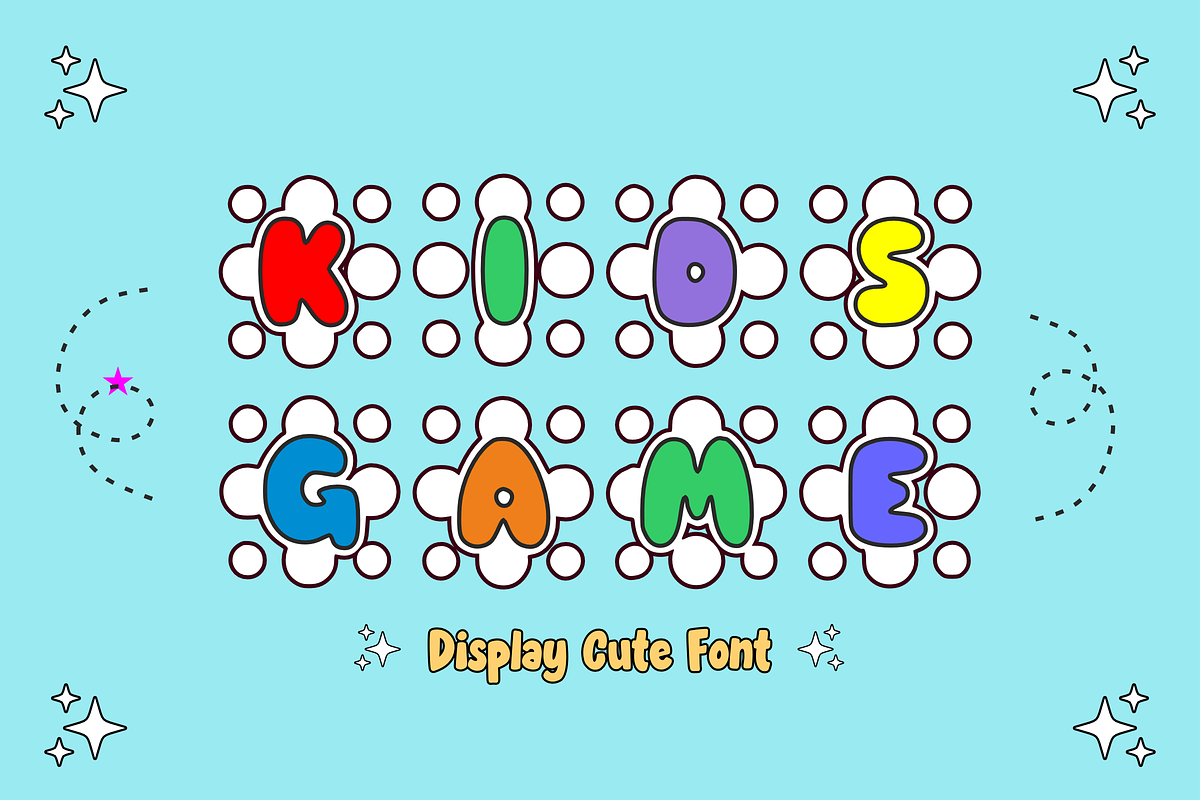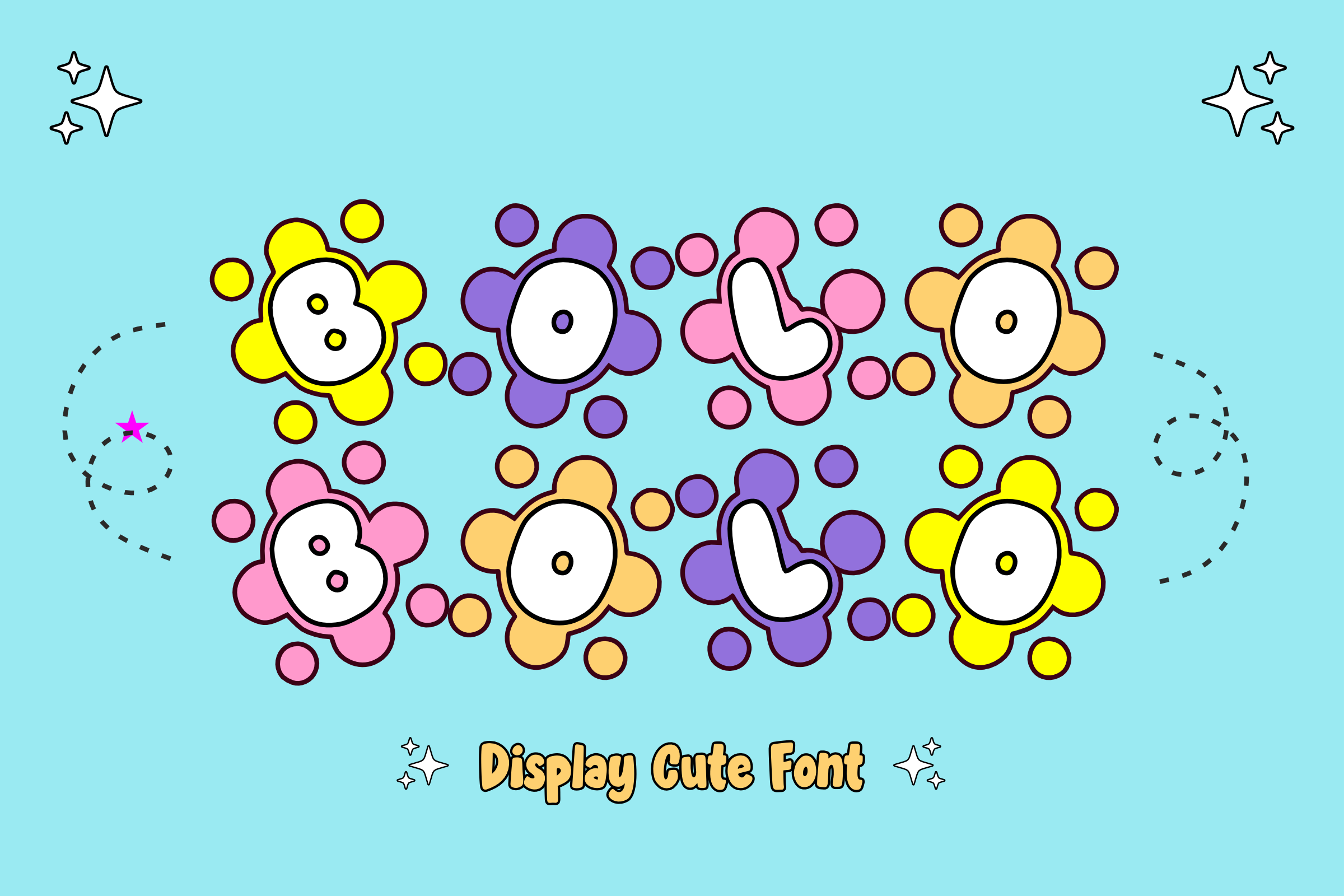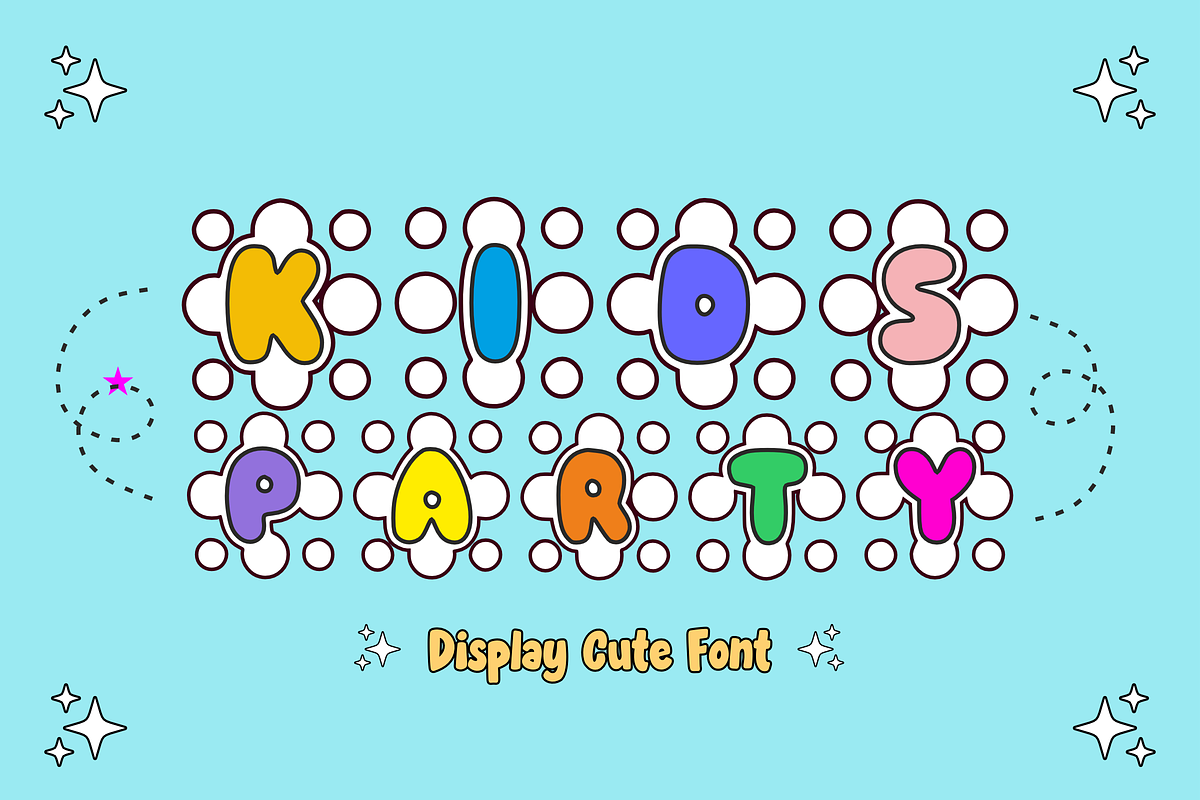
Bolo Bolo - Cartoon Font Types
Unveiling “Bolo Bolo,” a vibrant and lively Decorative font that is designed with a delightful polka dot theme. Each character in this whimsically patterned typography is adorned with bouncy dots, making spotting letters a breeze. This fun typeface is the ideal design element for imbuing personality into sublimation designs, imparting a splash of unique style to t-shirts, mugs, tote bags, and beyond. It breathes a dose of energy into animations, and it renders comic titles even more engaging. Unleash your creativity with “Bolo Bolo” and continually show your support by following and liking our store. We’re motivated in crafting more novel and exclusive font styles just for you. Thank you!